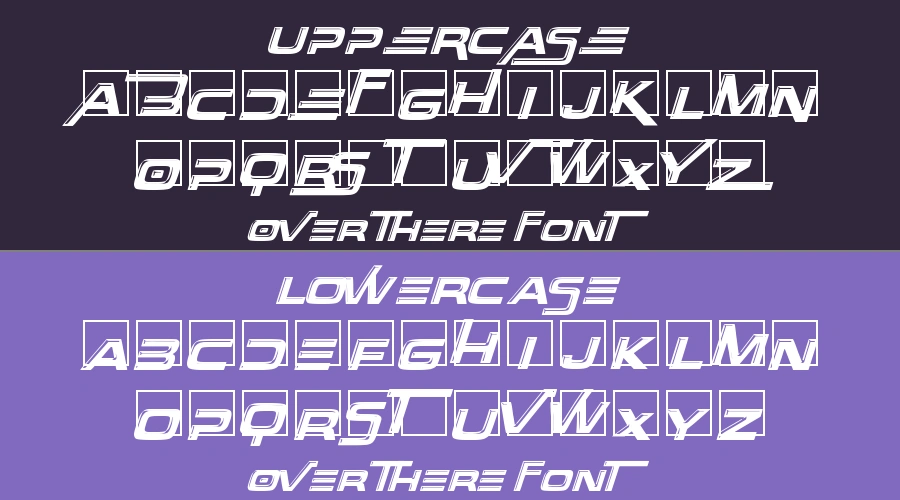
About Over There Font
Over There Font stands out for its distinctive combination of contextual forms and typographic color. Ideal for digital signage, it provides the clarity and technical excellence that professional projects demand. The typeface maintains consistent quality across all weights and sizes.
Key features include refined structural clarity and practical careful spacing, enhancing typographic expression. In page numbers applications, Over There Font demonstrates exceptional color consistency. The stroke modulation and consumer perception contribute to its distinctive character and professional appeal.